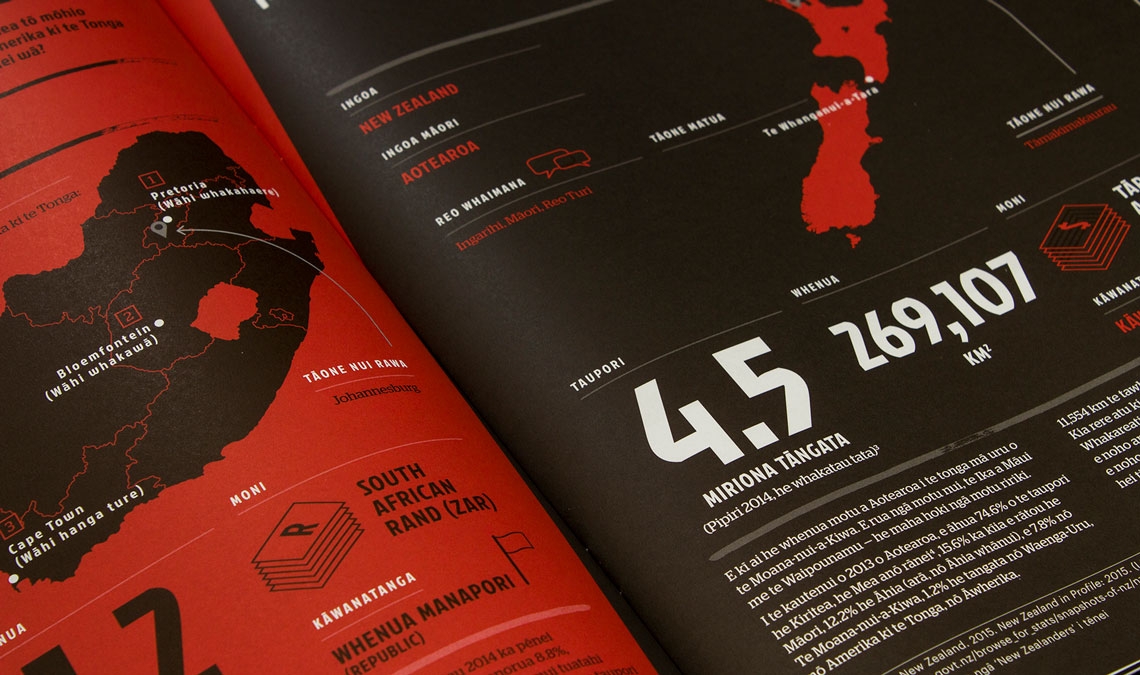
Mätaki Mai ana Te Ao / The whole world is watching
Jockey in use in the New Zealand educational resource Mätaki Mai ana Te Ao.
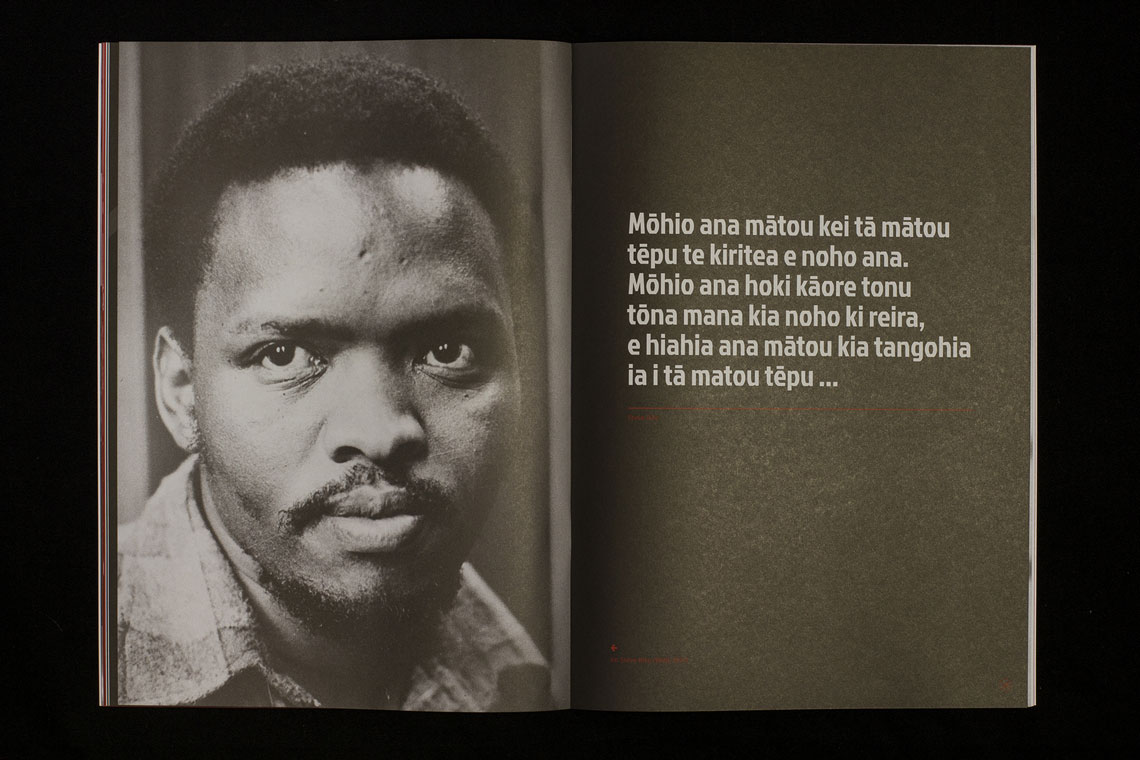
The graphic design studio Fay & Walter based in Wellington, New Zealand, and the publishing house Huia Publishing worked together to create an educational resource focused on the events of 1981 Springbook tour.
The books were created for 11–13 year old students, and the full kit included student and teachers books, picture cards, and DVDs. The book received the 2017 Edify Award for Best Educational Book at the PANZ Book Design Awards (Publishers Association of New Zealand).
For this project Fay & Walter used our free font Jockey in texts and infographics, as a counterbalance to the handwritten display typeface. “Jockey was chosen for its bold geometric quirkiness that subtly relates to Māori geometric patterns, and was used to avoid hand-painted overkill from Brush Up for secondary headers and infographics”.